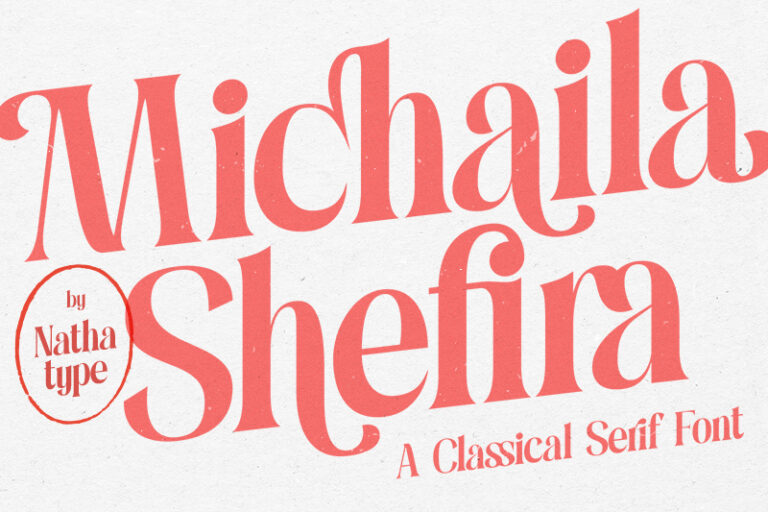
Michaila Shefira – Elegant Classical Serif Font
Michaila Shefira
Michaila Shefira is a classic serif font that embodies timeless sophistication and modern elegance. Designed with a fairly bold letter weight, this font exudes confidence and grace, making it the perfect choice to make both strength and refined beauty. Also, its thick serifs maintain great readability. Each letter in Michaila Shefira is crafted with balanced proportions and subtle curves, creating a seamless blend of classic style and elegant detail. In addition, enjoy the features here.
• Ligatures
• Stylistic Sets
• Multilingual Supports
• PUA Encoded
• Numerals and Punctuations
Michaila Shefira fits in branding, packaging, quotes, logos, posters, and many more designs. Find out more ways to use this font by taking a look at the font preview.